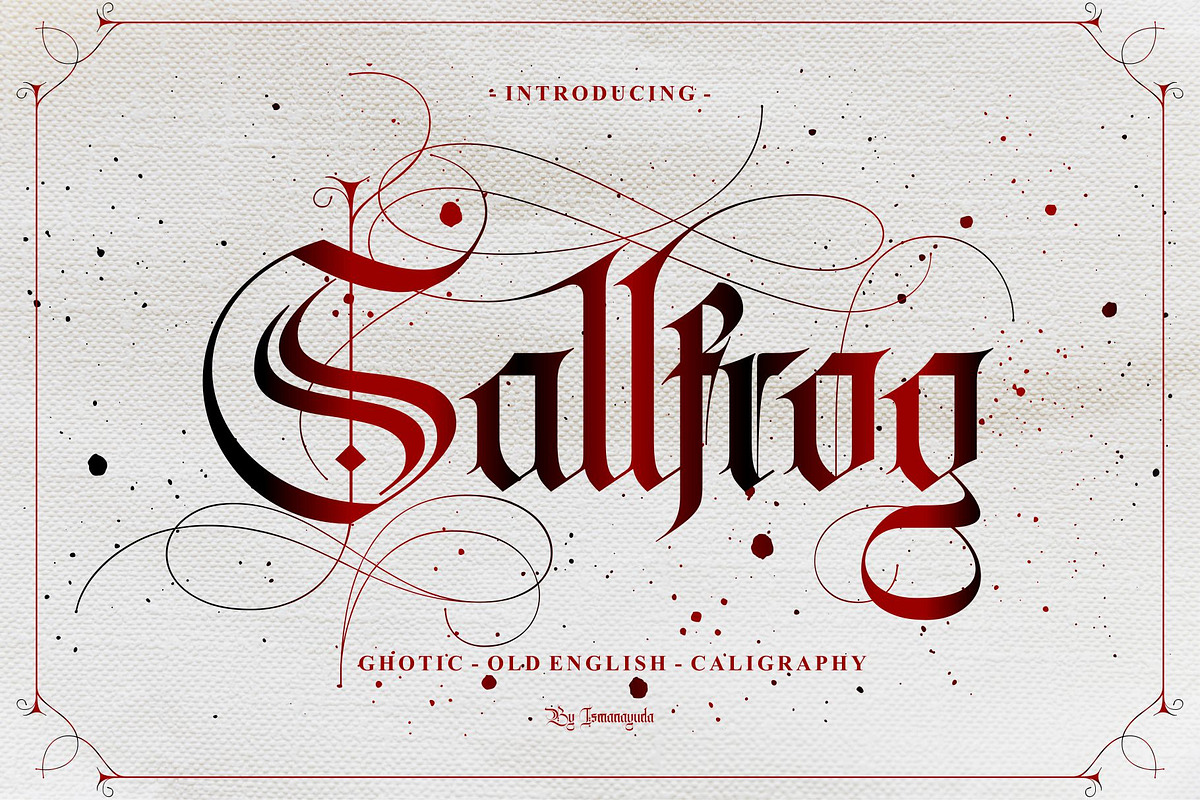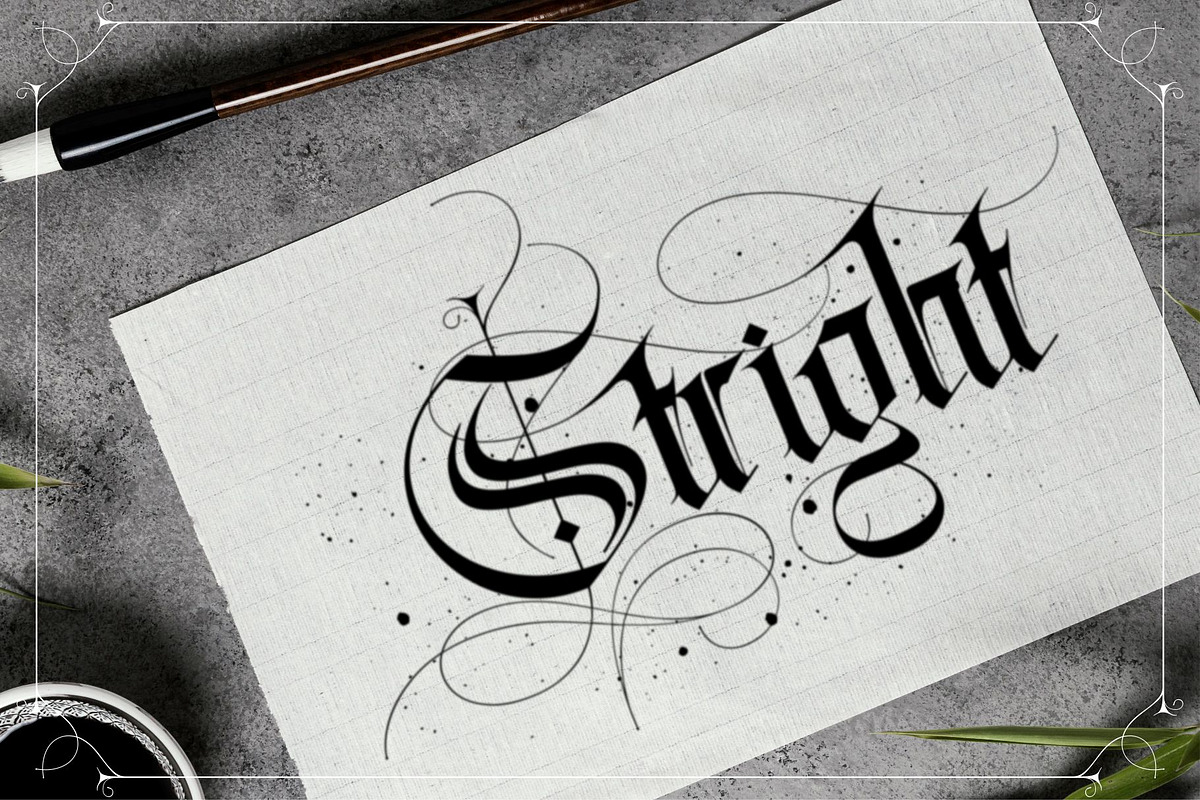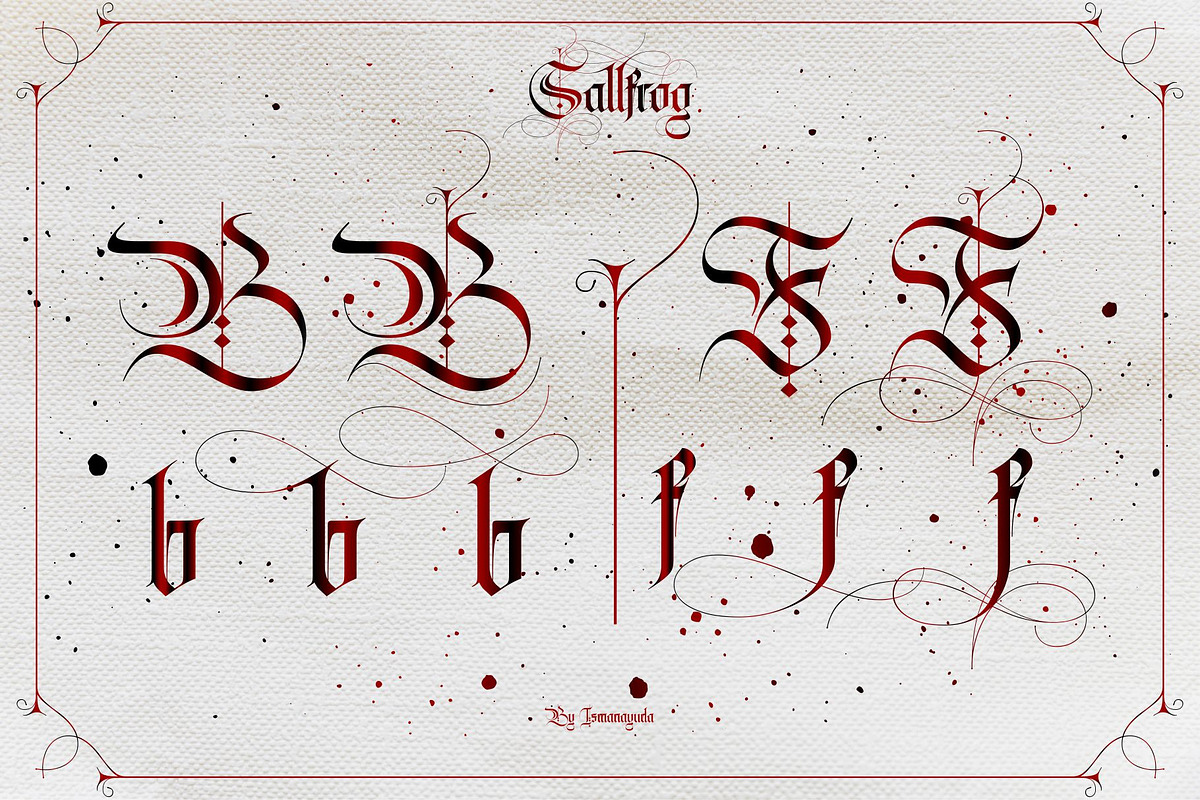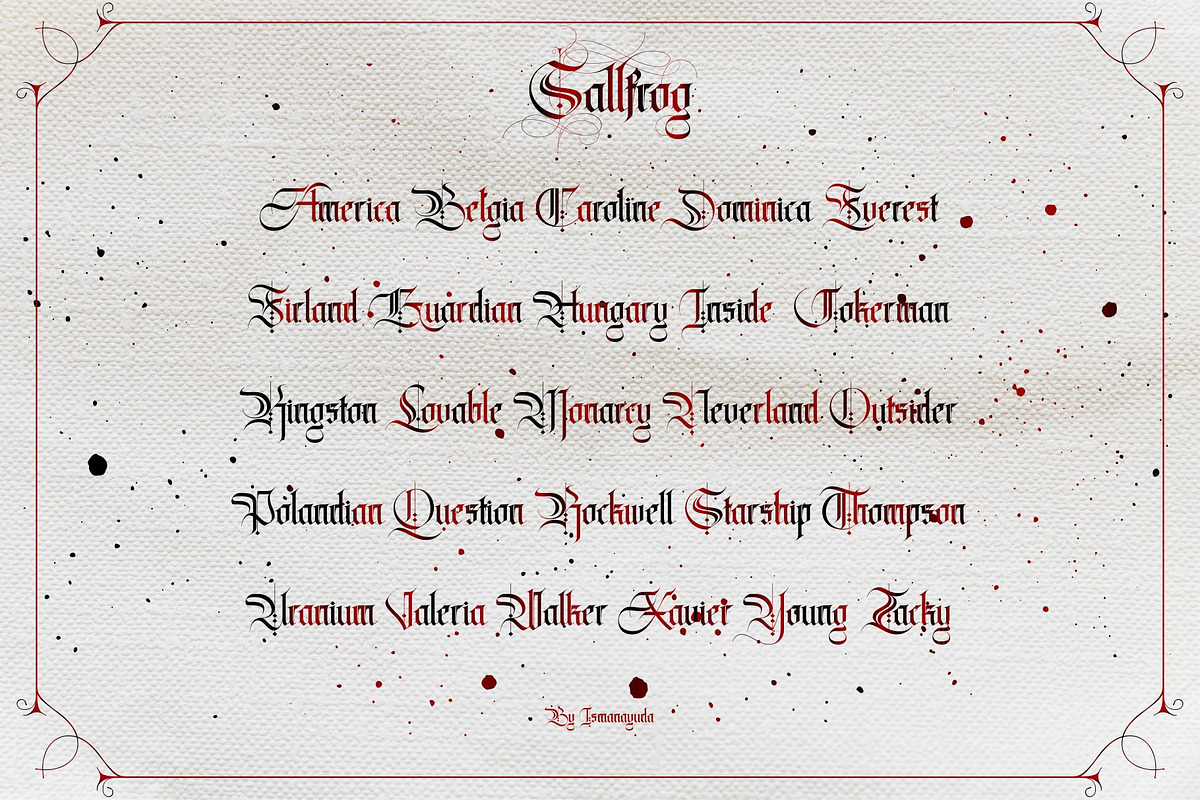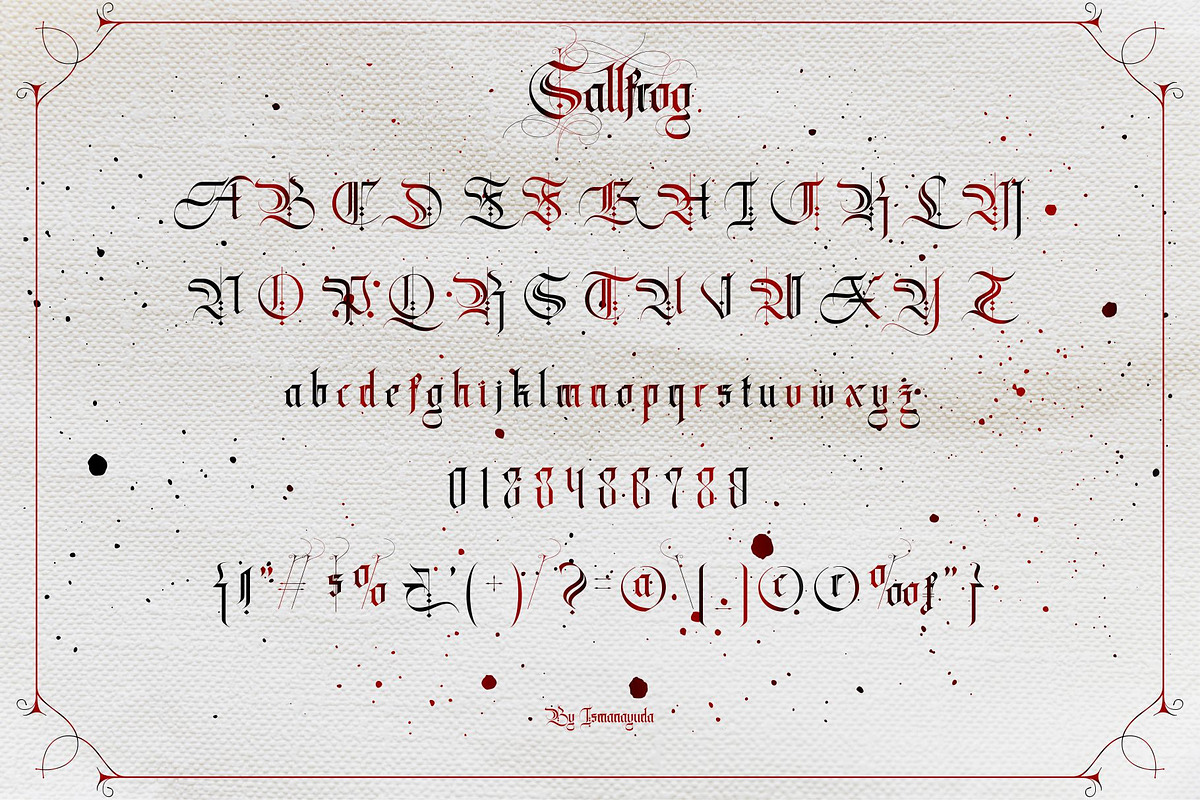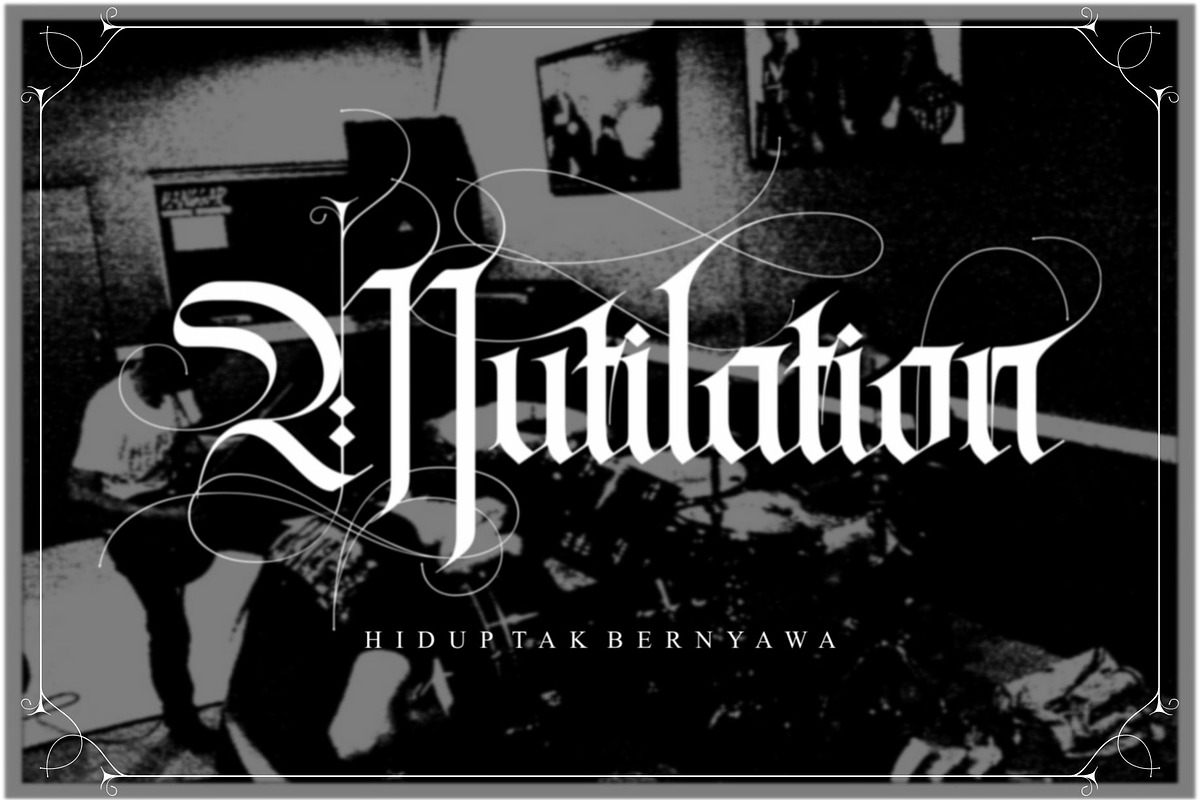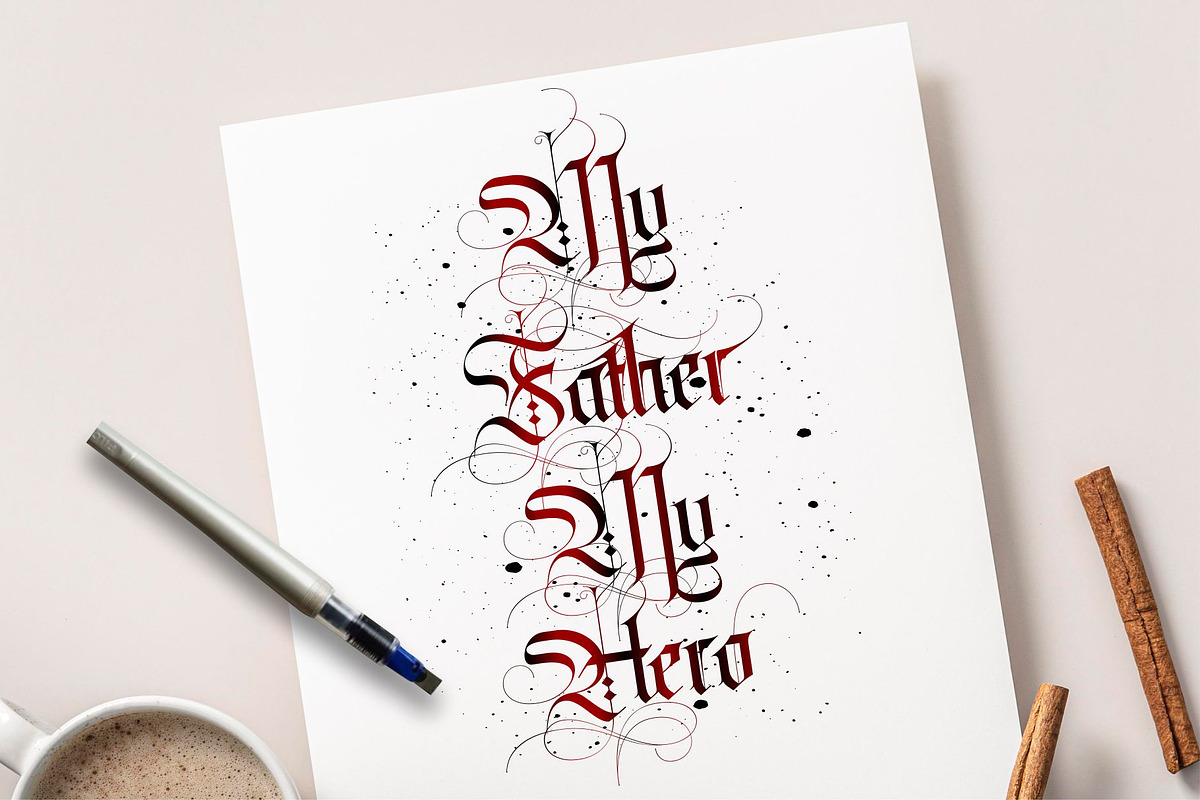
Sallfrog
Hello,,.. This time we want to reintroduce our newest masterpiece, which we call "Sallfrog". This font is a little different from the others. Blackletter style but a combination of several styles, such as Gothic, Old English, and also Calligraphy. For this font, we're sorry we don't include bonus ornaments. However, we provide several alternatives and we even provide lots of glyps.